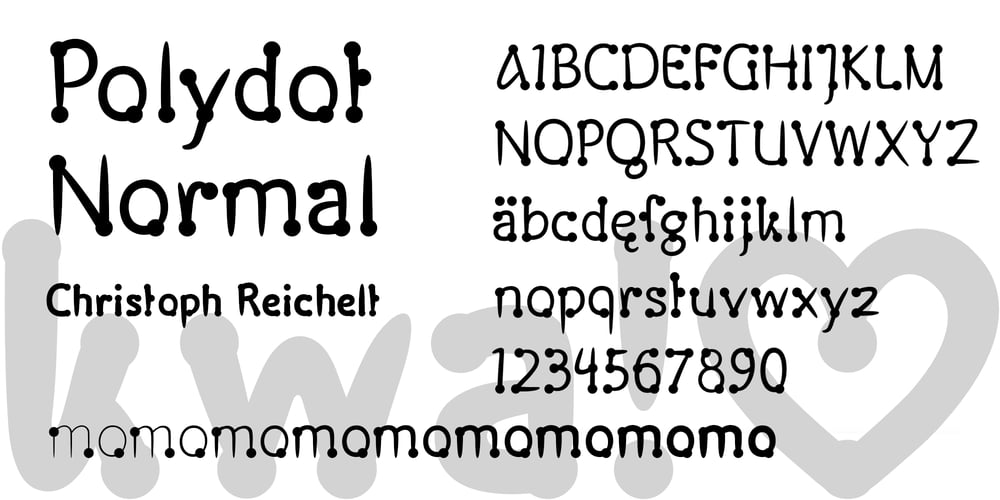
Polydot Font Family was designed by Christoph Reichelt and published by Christoph Reichelt. Polydot contains 18 styles and family package options. Polydot is an experimental Font, built following its own rules. It has interesting letter shapes, making it a perfect choice for creative packaging and magazine design. At the same time it makes a beautiful, neat but vivid text pattern when used in smaller sizes: Use it for children’s books, food and beverage, cosmetics or health topics. Each Glyph is based on at least one dot on the body line, and has up to two more on the lower case level and the ascender level. Since they have the same size and are on the same height on all letters, no matter what weight and shape, these dots give a strong structure to the typeface, allowing for dynamic and easy letter shapes, inspired by brush strokes. It’s not a hand font but it has the dynamics of one. It has no serifs but provides the structure and readability of a roman type. It has an extensive choice of weights, but it’s characteristic dots have the same size and it has the same tracking through all weights. Try it, it’s special.